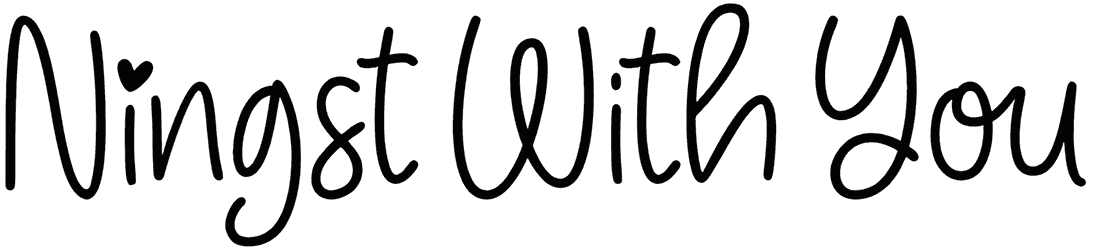
Ningst With You Font
The Ningst With You font has a lively style and appears to have been handwritten. This love font is the perfect mix of casual and elegant. This skinny and reliable font is perfect for use in any branding or design project, from business cards to social media posts.